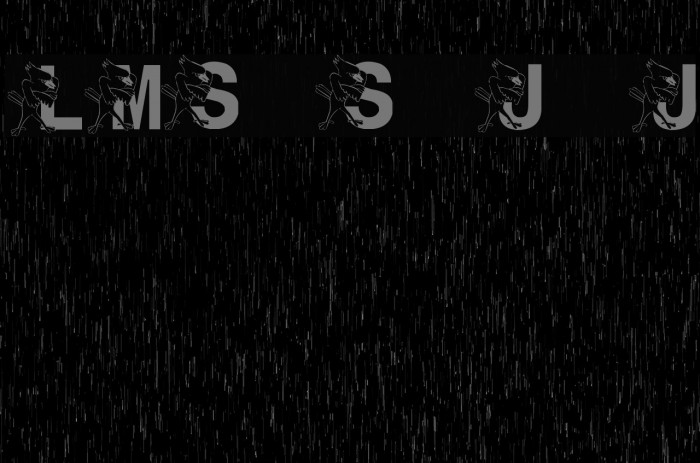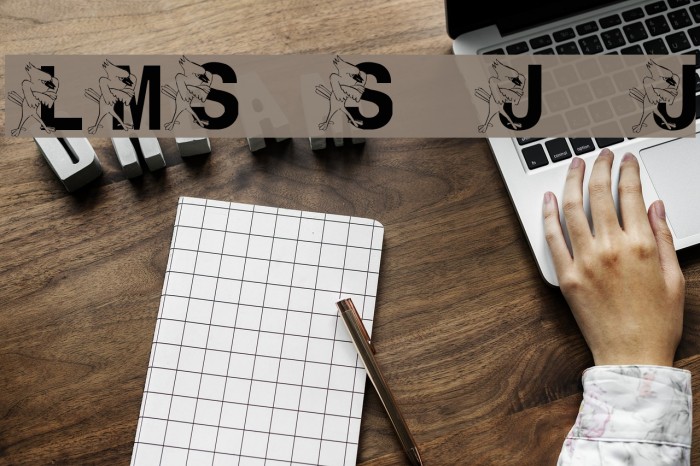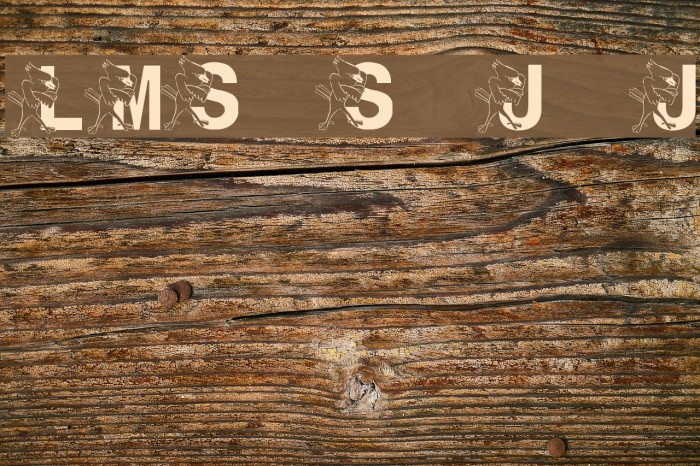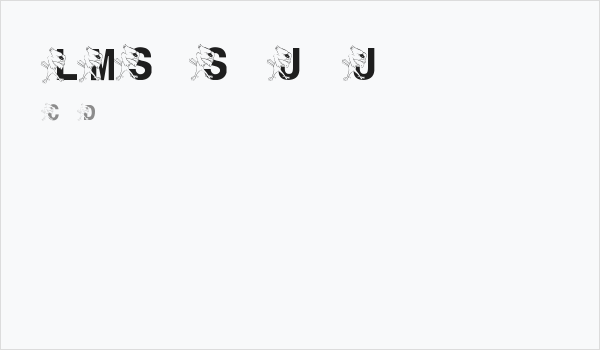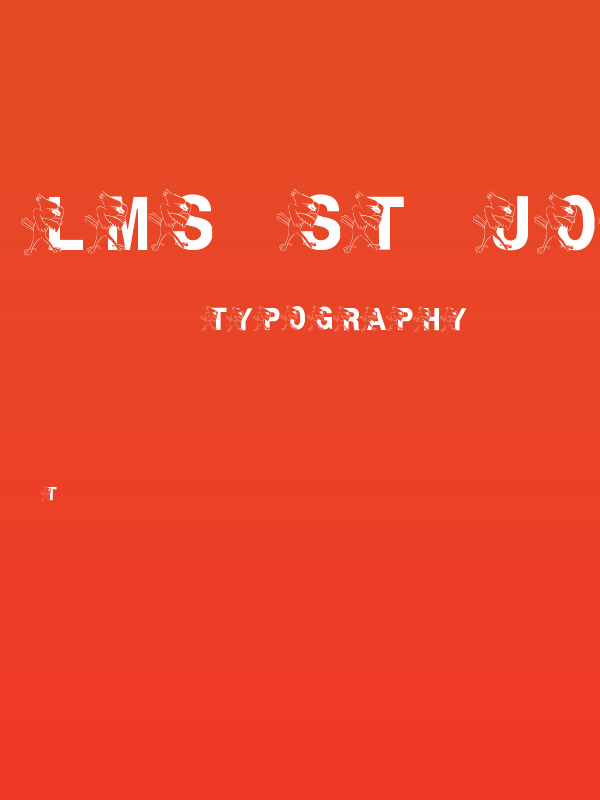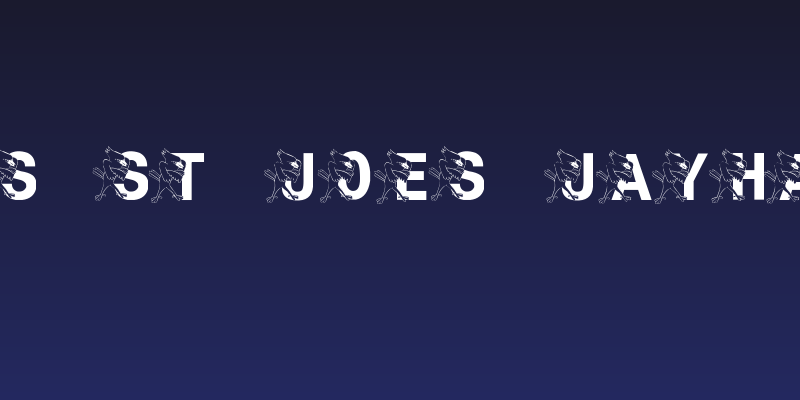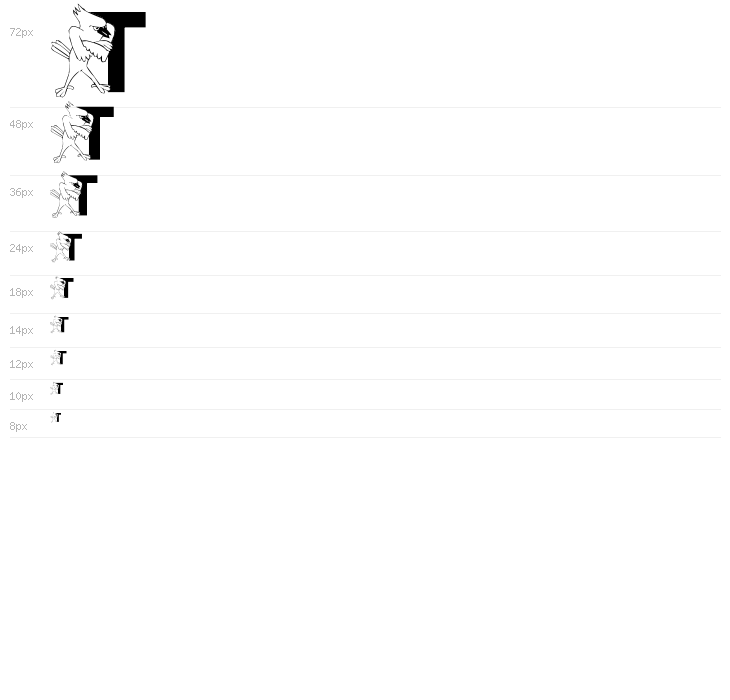
LMS St. Joe's Jayhawk Font
LMS St. Joe's Jayhawk Description
This font features a playful and whimsical design, incorporating a cartoonish character integrated into each letter. The characters are bold and have a strong presence, with a unique blend of illustration and typography. The font is highly decorative, making it stand out with its creative and artistic flair. Each letter is adorned with a detailed drawing, adding a layer of complexity and visual interest. This font is perfect for projects that require a fun and engaging aesthetic, capturing attention with its distinctive style.
| Proposed Projects | Ideal for children's books, playful branding, themed event invitations, and creative posters. |